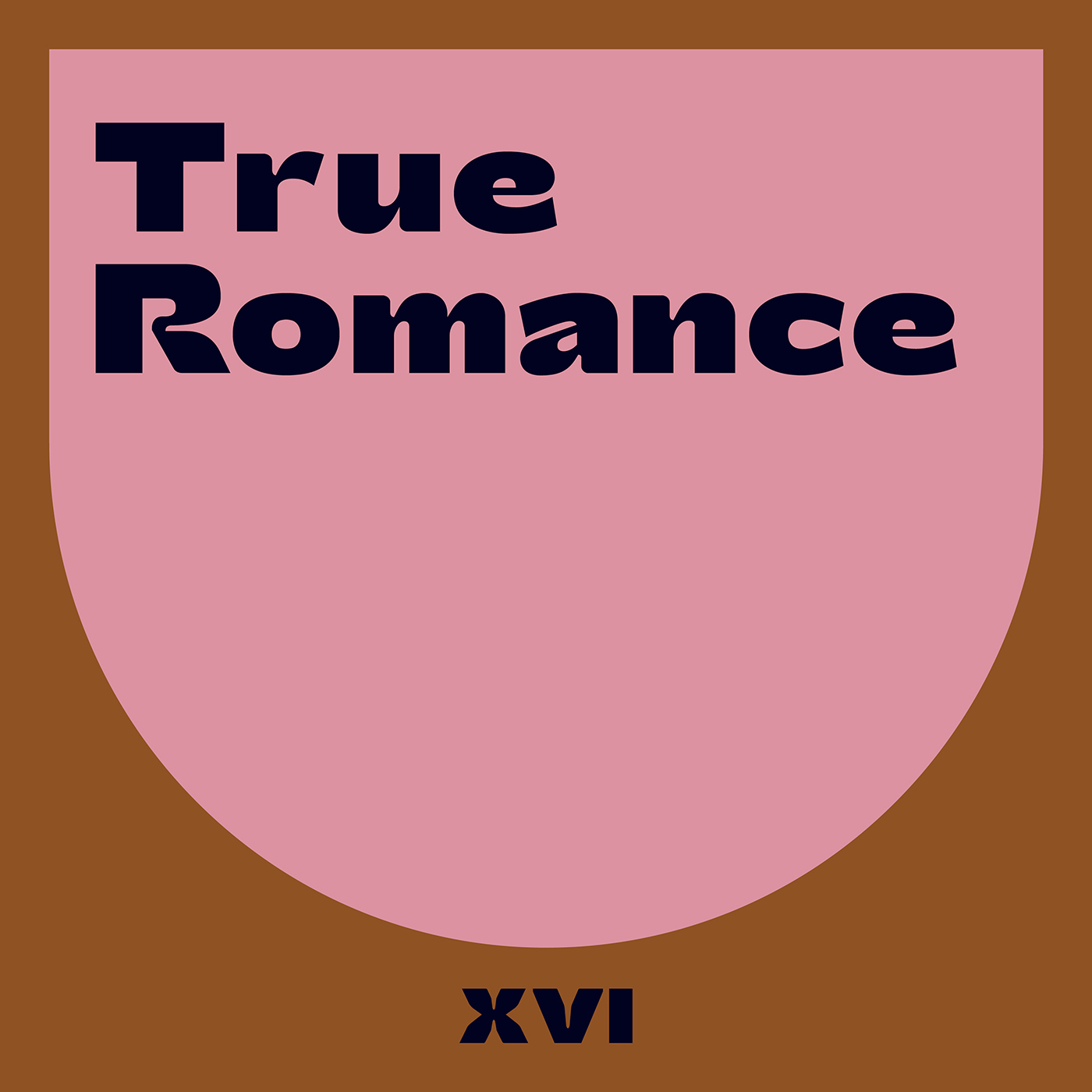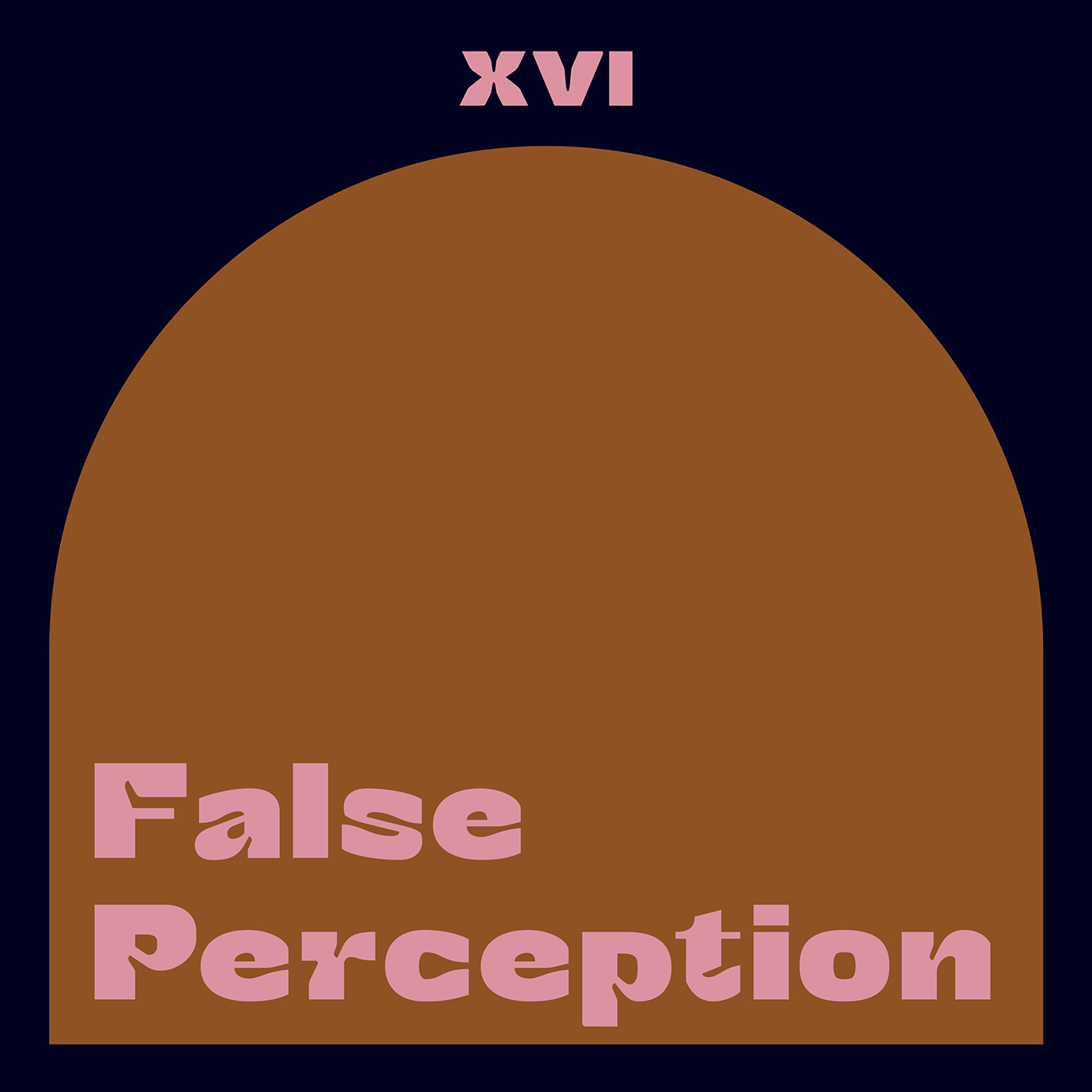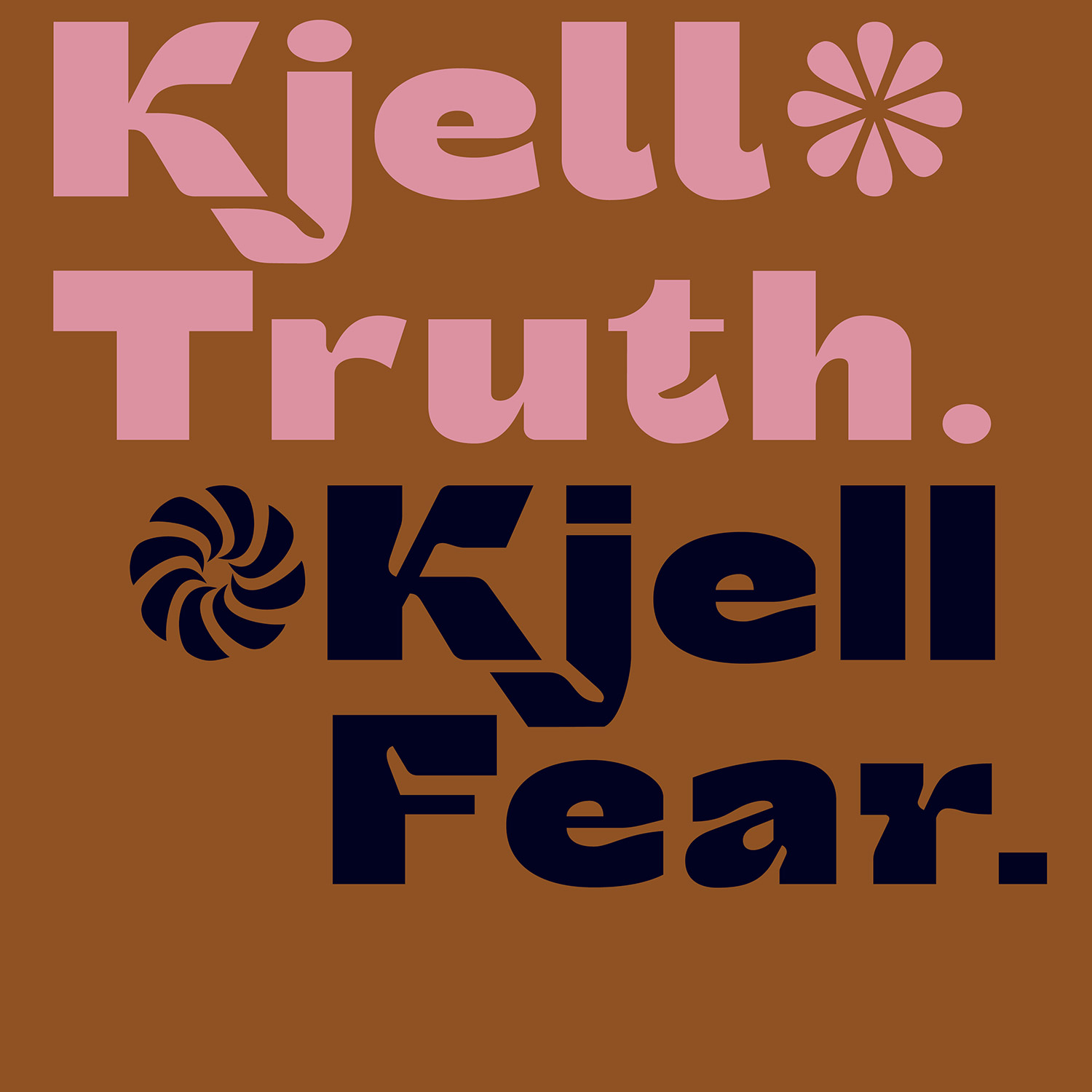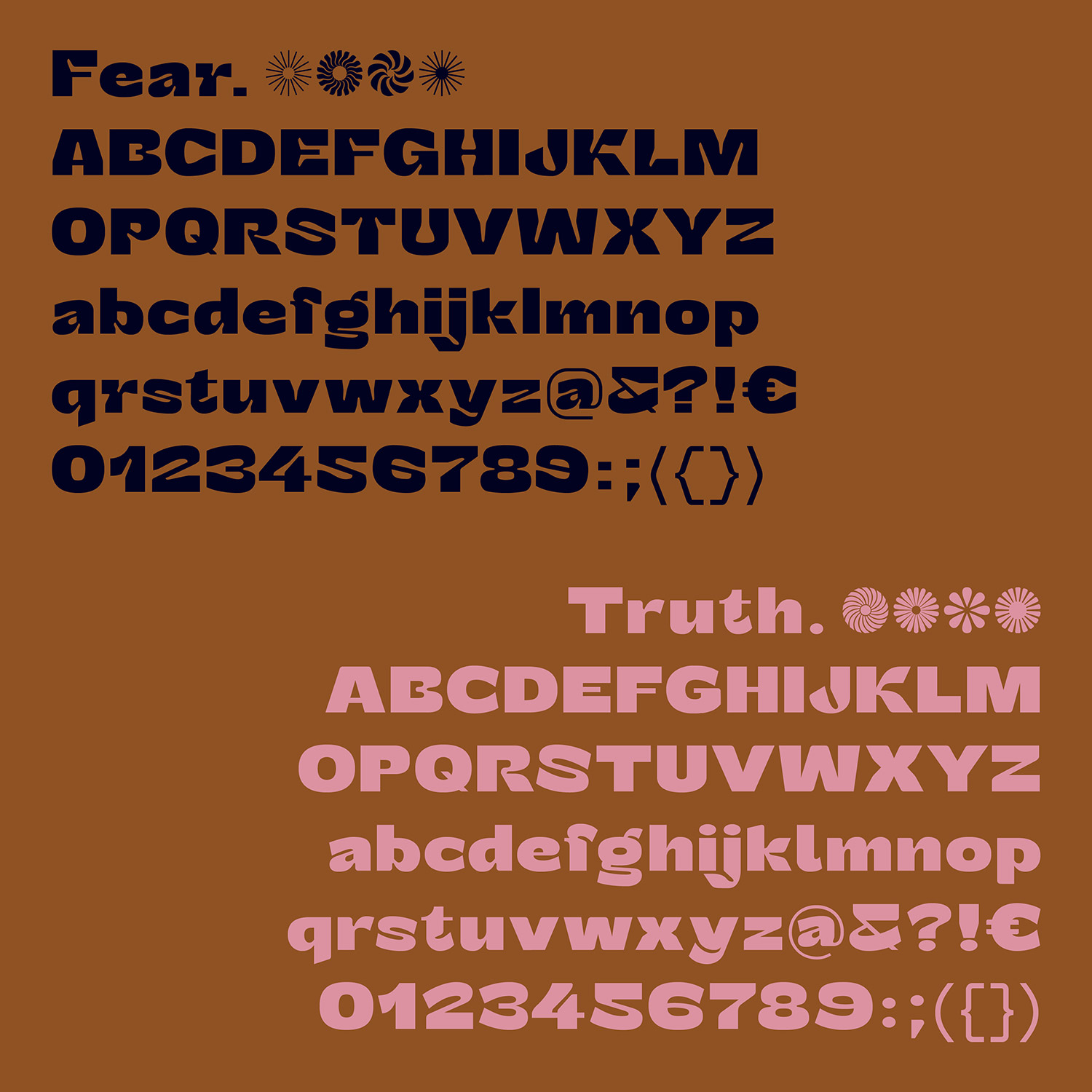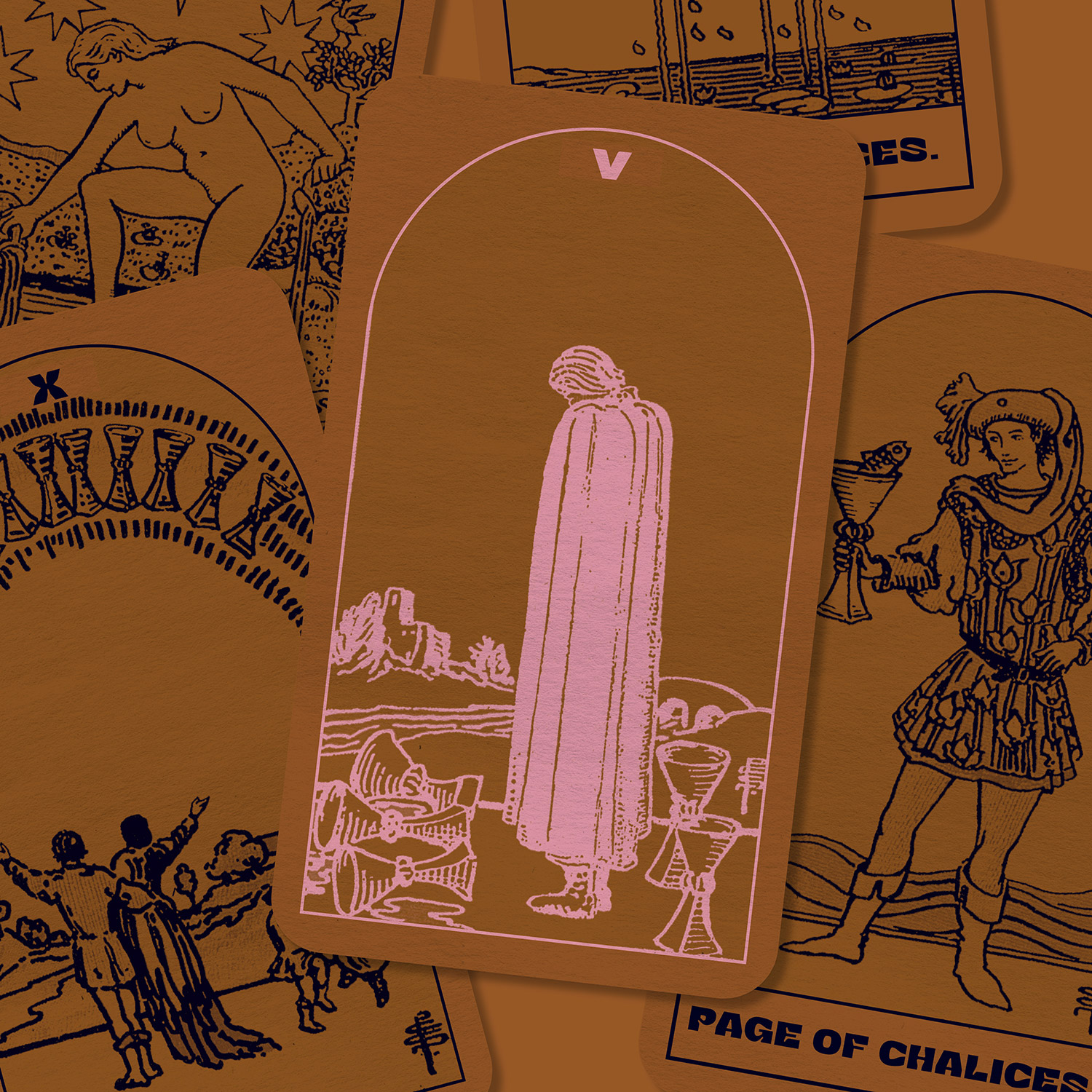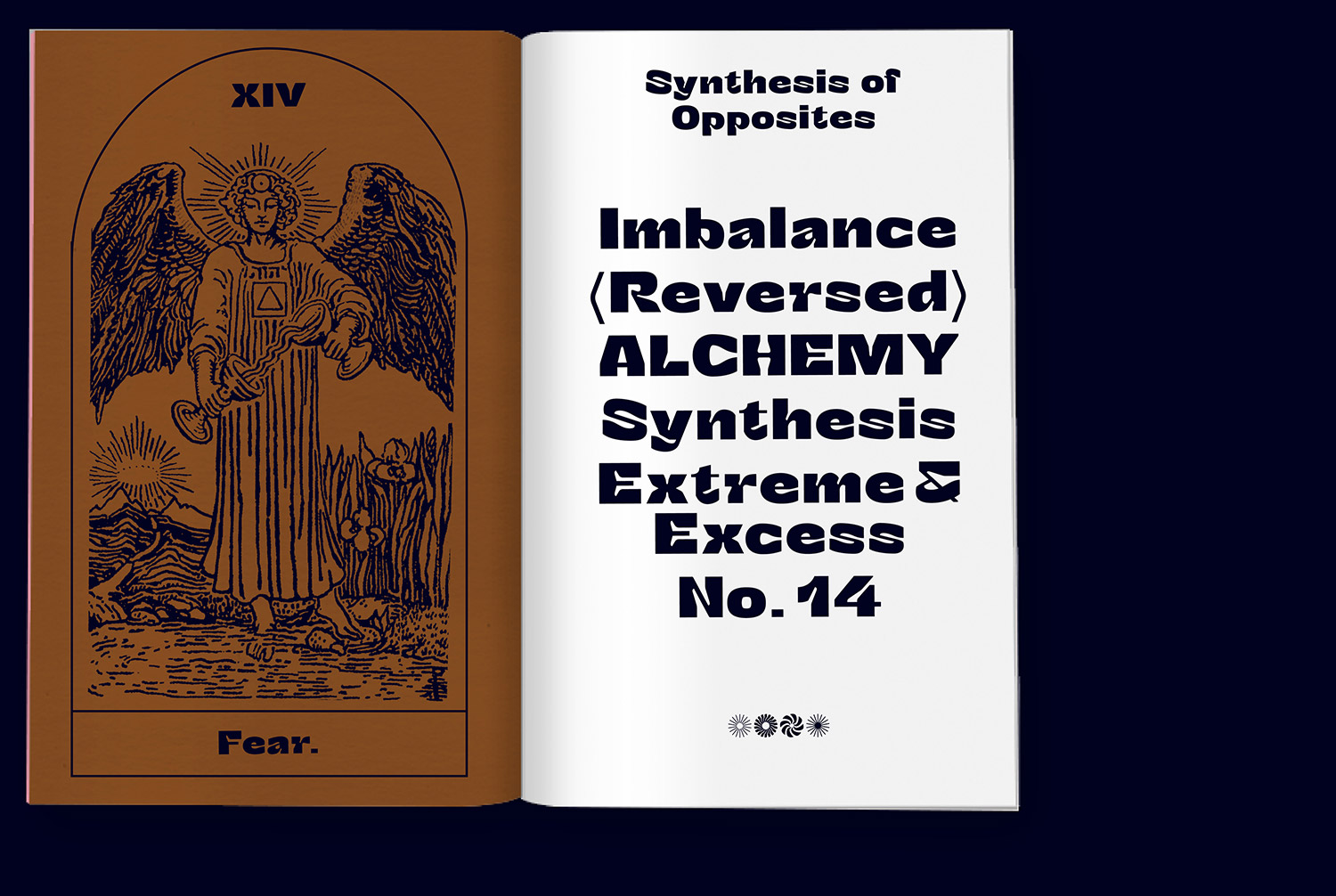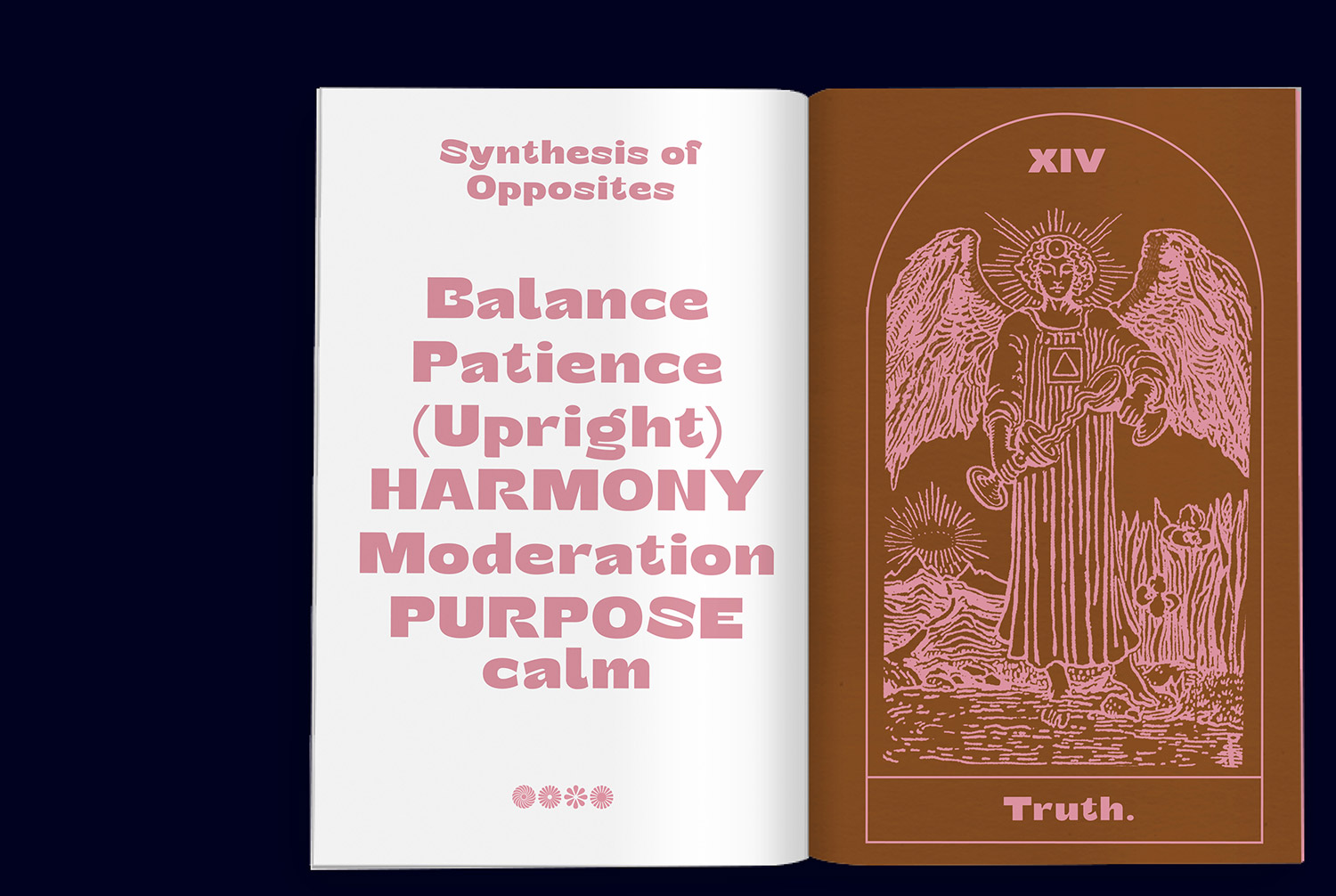
Armin Brenner & Markus John designed Kjell typeface - Synthesis of opposites. Kjell is a conceptual display typeface balancing between its two extremes. The typeface combining two different faces - the »Fear« and »Truth« weight, which are made out of one stem.
Inspired by the 14th tarot card of temperance, Kjell understands itself as a synthesis of its two opposites, which are representing a process of harmonization.
Both of the extremes have their details – while the »Fear« extreme is characterized through deep ink traps, the »Truth« extreme appears more softly with its rounded edges. Both extremes are characterized by their details and are duel each other. Referring to its architecture and appearance, Kjell is intended as a display font. With its extensive set of glyphs, it is multilingual and contains a large number of accents, punctuation, symbols and special characters.